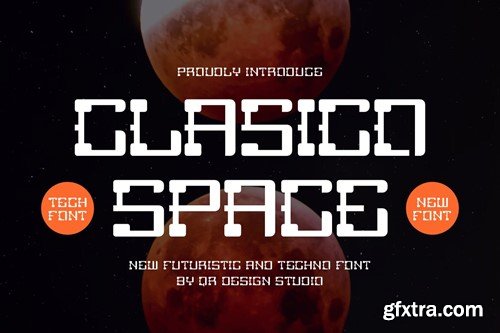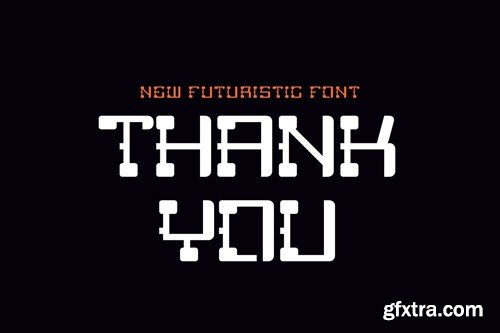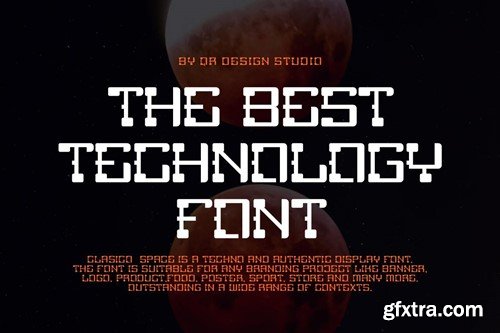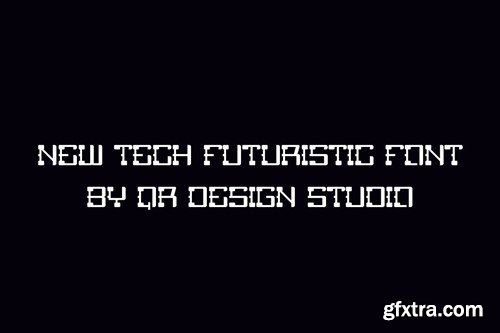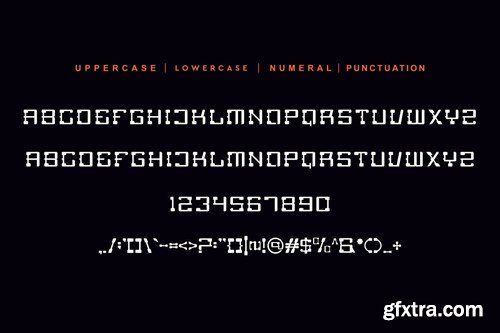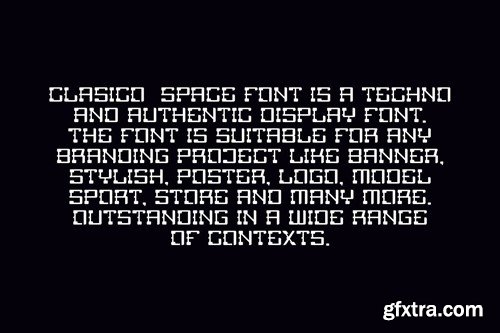
Clasico Space - Cyber & Tech Font YFLNTSR
Clasico Space - Cyber & Tech Font
Clasico Space - Cyber & Tech Font is a modern and authentic display font. The font is suitable for any branding project like poster, logo, sport, and many more. Outstanding in a wide range of contexts.